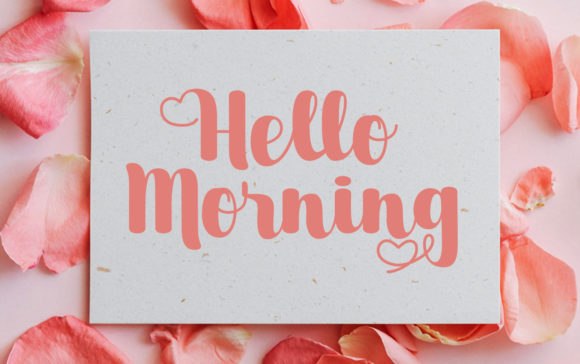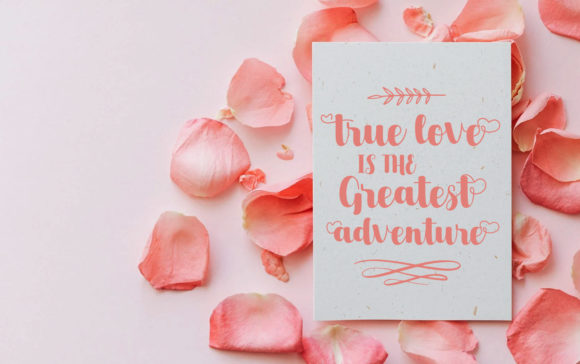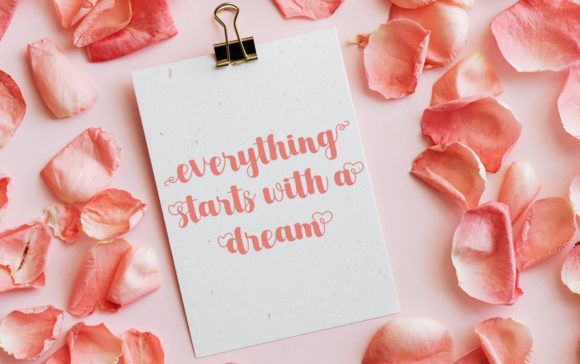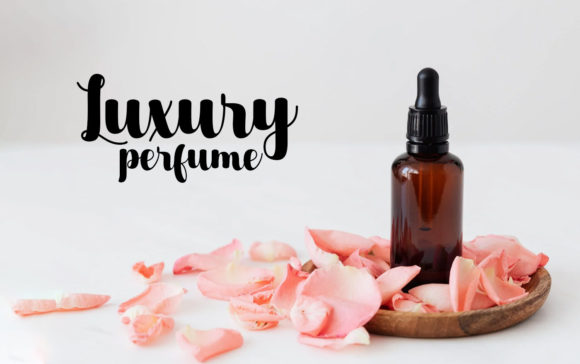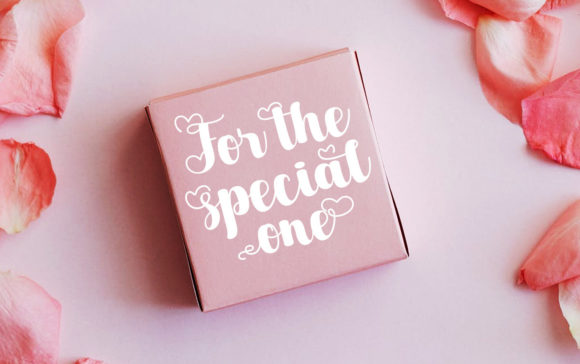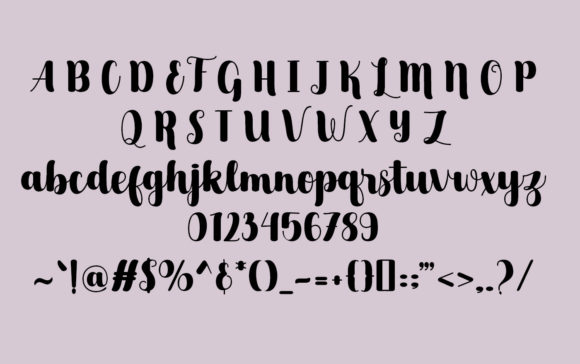
Hello Morning Font
About Hello Morning Font
Hello Morning is a romantic and sweet calligraphy typeface with characters that dance along the baseline. It will add a luxury spark to any design project that you wish to create! This font is PUA encoded which means you can access all of the amazing glyphs and ligatures with ease!